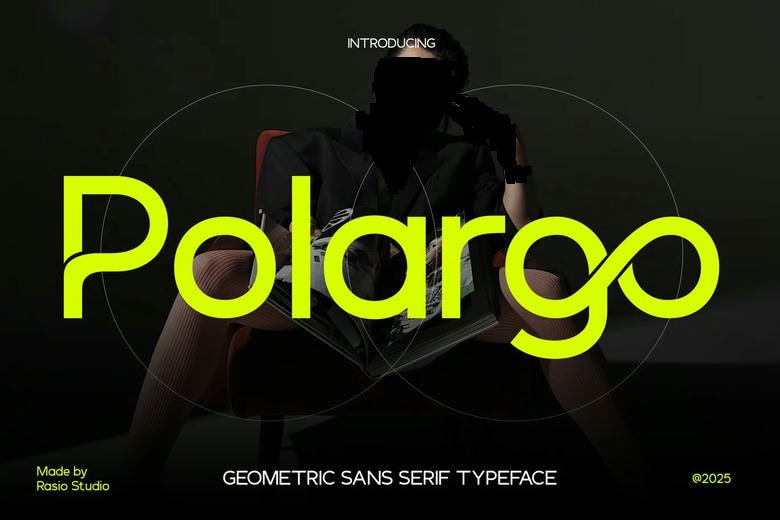
Polargo Font
Polargo is a modern geometric sans serif font in futuristic and fashionable tone, as it needs to be extremely legible and make the presentation deliver highly-charged impact. With their rounded shapes and regular monoline serifs, Polargo is equally involved in form and expression.
It is so awesome in aesthetic and evocative of technology that it could be used to brand, in digital interfaces, in fashion editorials, in advertisements of technology, in posters of newer styles and modern design, in the apps, and in creative marketing.
Polargo scales cleanly and remains visually enticing and sharp both in print and on screen regardless of whether it is applied to eye-catching headlines or to more subtle identification systems.
Polargo Sans Serif Font